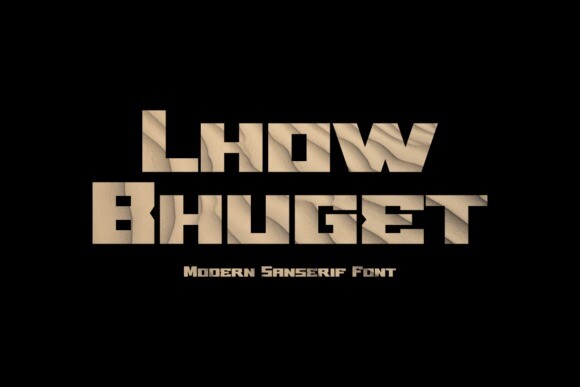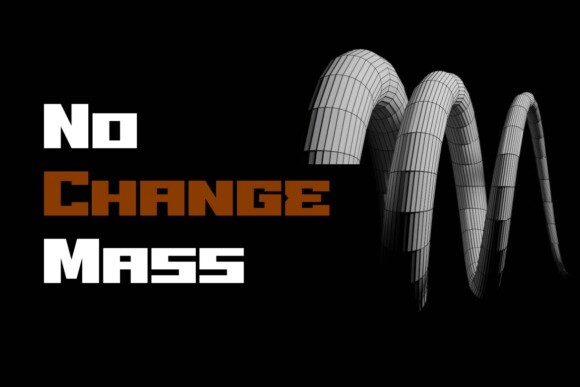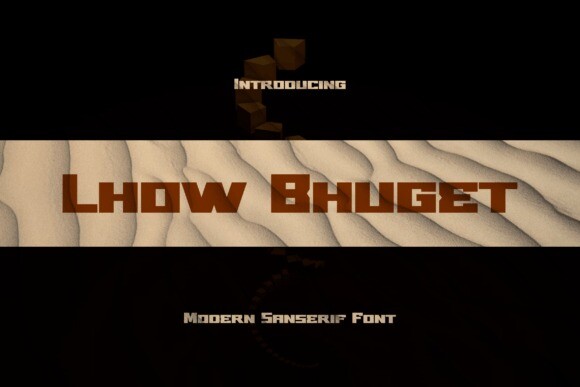
Lhow Bhuget Font
Designer: cozzdesign0
Lhow Bhuget Font is a modern typeface that looks both futuristic and contemporary. The lines are sharp and clean with an aerodynamic shape that exudes a modern and technologically advanced feel. Perfect for technology design and branding. This font is simple and clean, making it easy for the designer to convey a message to the design without confusing the viewer too much. Conigen Modern gives a professional and innovative impression.